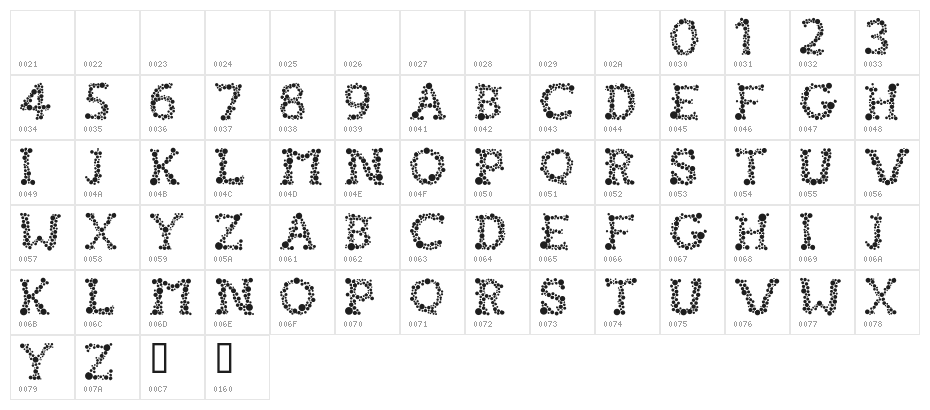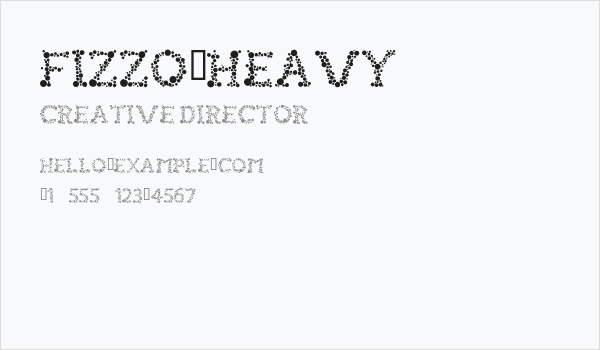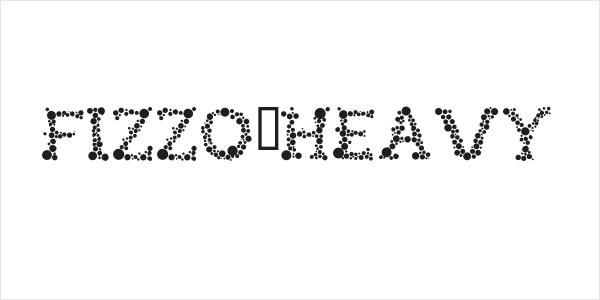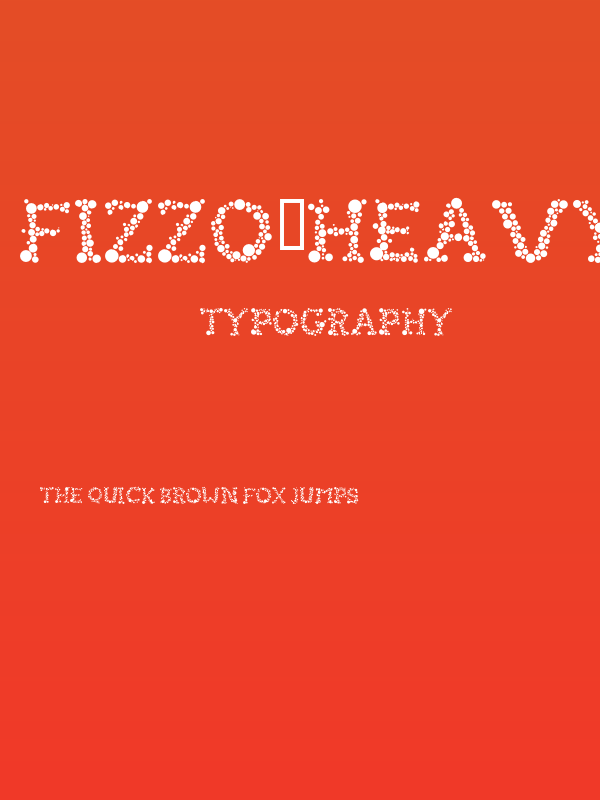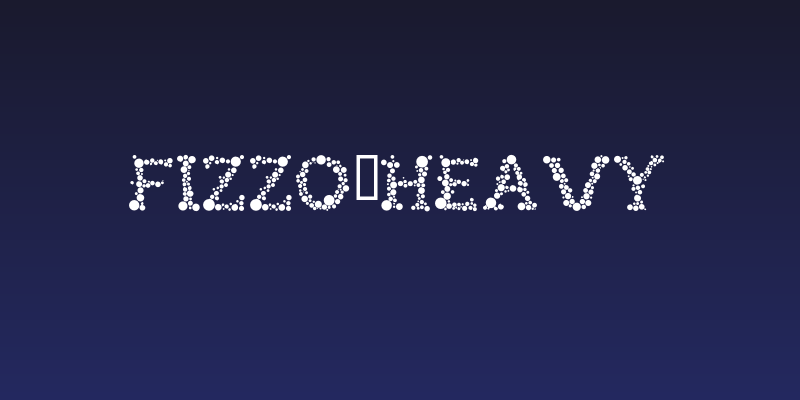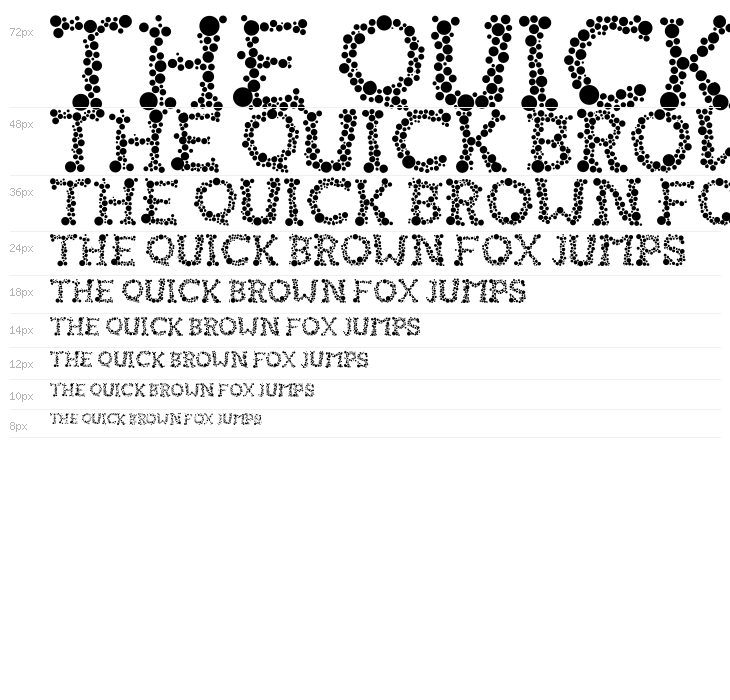
FIZZO-Heavy Font
FIZZO-Heavy Description
This font features a unique design composed entirely of small, evenly spaced dots that form each character. The letters are bold and eye-catching, making them ideal for decorative purposes. The uppercase and lowercase letters maintain a consistent style, with rounded edges and a playful appearance. Numbers and special characters follow the same dotted pattern, ensuring uniformity across all elements. This font's distinct style makes it stand out, offering a modern twist on traditional typography.
| Proposed Projects | Ideal for posters, event invitations, children's books, and playful branding projects. |